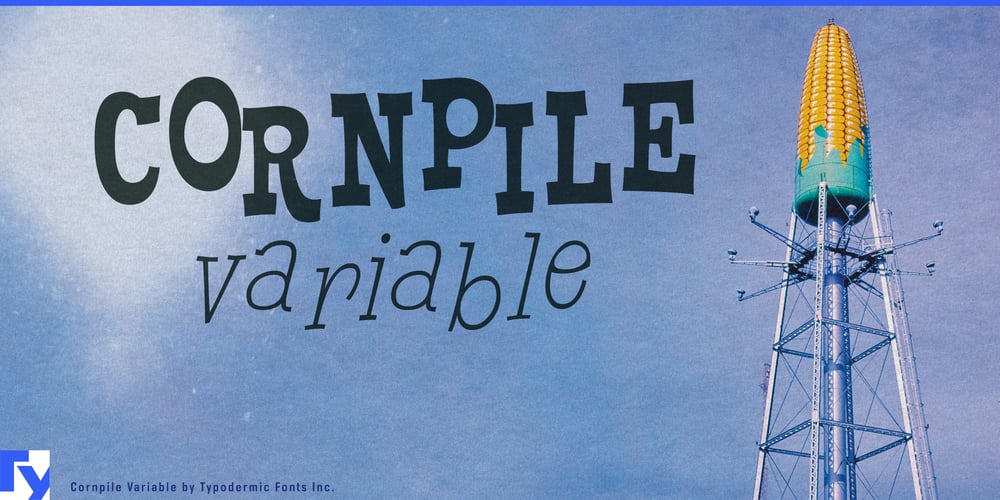
Cornpile Variable
Cornpile Variable font
Cornpile Variable Font Family was designed by Ray Larabie and published by Typodermic. Cornpile Variable contains 1 styles and family package options. Discover Cornpile Variable, a delightfully whimsical slab-serif typeface that brings a fresh burst of creativity to your designs. This innovative font family harnesses the power of variable font technology, offering unprecedented flexibility and fun for projects that demand both personality and precision.At the heart of Cornpile Variable’s charm lies its dynamic weight and slant axes. These features liberate designers from preset styles, allowing for nuanced typographic expressions. Want to craft text with a weight that’s just a kernel bolder than medium? Or perhaps a slant that playfully nods to italic without fully committing? Cornpile Variable puts these fine-tuned adjustments at your fingertips.In OpenType-savvy applications, Cornpile Variable retains its signature bouncing letters and numerals, infusing text with an irresistible sense of zaniness. The variable weight axis enables you to adjust the boldness of these animated characters while preserving their distinctive cartoon-like charm. Meanwhile, the slant axis opens up new realms of playfulness, allowing for smooth transitions from upright to italic—perfect for creating text that mimics the gentle sway of cornstalks in a summer breeze.Cornpile Variable’s versatility makes it an ideal choice for a wide range of projects. From crafting eye-catching logos for local festivals to designing engaging posters for children’s events, this typeface adds a sprinkle of joy to every application. Its expanded range of expression empowers designers to create truly unique, attention-grabbing visuals that not only communicate but also delight.Beyond its playful aesthetics, Cornpile Variable boasts impressive linguistic versatility. Supporting most Latin-based European languages, Vietnamese, Greek, and a wide range of Cyrillic-based writing systems, this typeface ensures your message maintains its quirky character across diverse alphabets—from Afrikaans to Zulu and beyond.Cornpile Variable isn’t just a font; it’s a celebration of typographic possibilities. It invites designers to shuck off the constraints of traditional typography and embrace a world where every letter can be as unique as a kernel of popcorn. Whether you’re aiming for subtle whimsy or full-on typographic exuberance, Cornpile Variable provides the tools to bring your vision to life.For those seeking to infuse their designs with humor, energy, and a touch of the unexpected, Cornpile Variable offers a cornucopia of creative options. It’s time to let your imagination pop and explore the delicious versatility of this one-of-a-kind typeface. With Cornpile Variable, every project becomes an opportunity to create designs that are truly a-maize-ing.